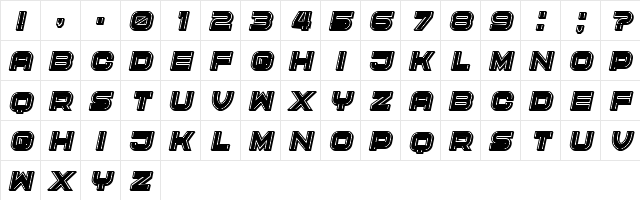
Complete Cyber Princess 3D Filled Italic glyph index. Displaying only characters natively supported by Cyber Princess 3D Filled Italic font.
Cyber Princess 3D Filled has a distinctly futuristic character, with geometric precision and clean angles that feel at home in technology, gaming, and sci-fi contexts. The slanted form adds forward momentum and visual energy.